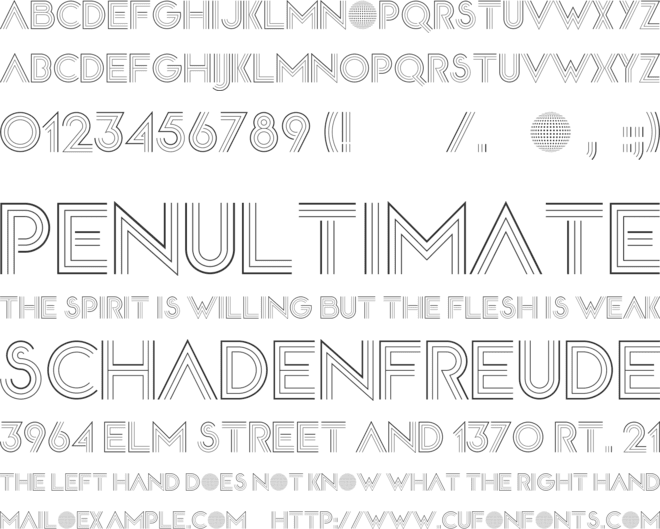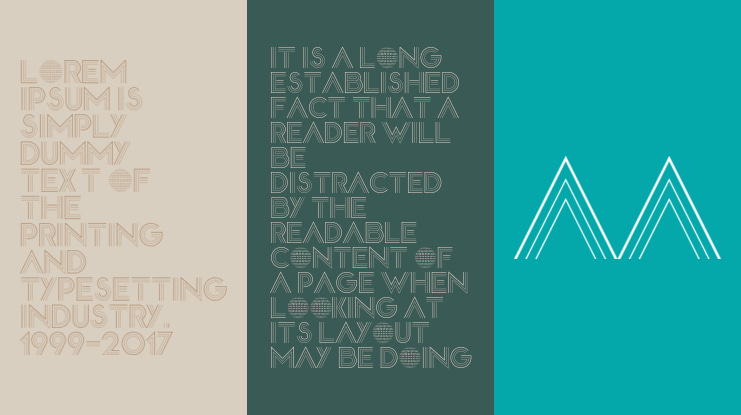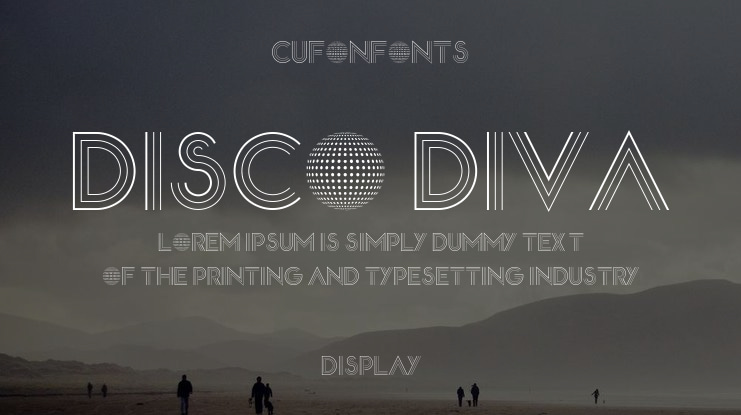
Disco Diva Font
Disco Diva is a neon-style display font with thin multi-line letters that look like 70s disco signage. One style with A–Z, a–z, 0–9 and punctuation — typing a lowercase o drops in a disco ball. Made for party invites, nightclub flyers, retro posters, and dance-event branding.